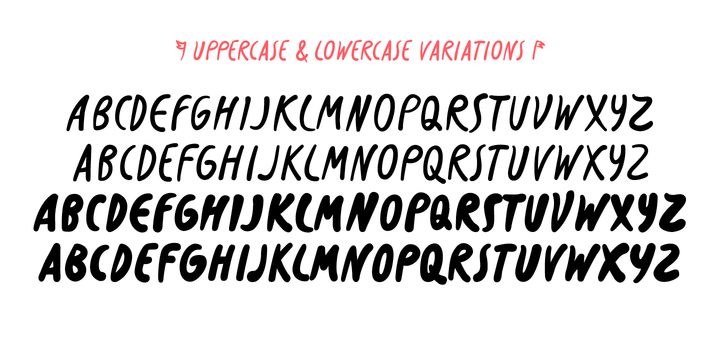
Slurm
by Nikola Klimova
Slurm is a hand-drawn fun font that is ideal for use in headlines, descriptions and logotypes used in product design and similar applications. In longer texts it works well as a complementary font for comics and illustrations. Various sizes and weights for individual characters are derived from the hand-drawn font. Each glyph is an original; no shapes are repeated. Ligatures have been created for double letters and the typeface includes diacritics for languages that use Latin letters.
The typeface features two basic styles, Regular and Bold, which can be used separately just as well as combined. Each style also includes pictures that can be used for various occasions.